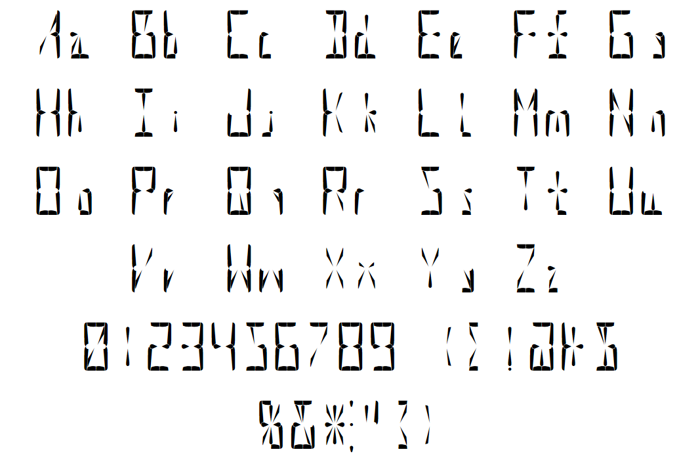
Supernova Display Font
A supernova alphanumeric display has between 31 and 39 segments. This supernova display has 33 segments. It has twenty-four inner segments with a central dot, and eight outer segments.Bold version of the Supernova alphanumeric Display
Updated 2019: Converted to TT curves: Bolding is now even